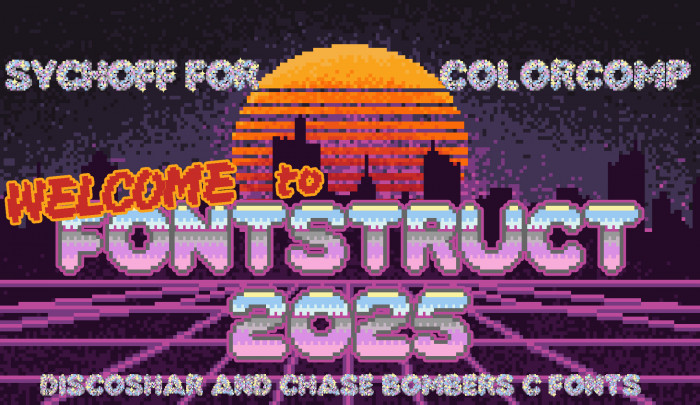
Discoshar means Discoball
Nice pixel-art font! The blurred letters makes me smile. Well done.
Btw, I think your coloured bricks are overlapped... this would produce a extrange mix using the final font in a design, melting ones by others because the colous must appear and be used transparent in colour fonts, IMHO. But the font is cool. Go on.
Nice shine :-)
@elmoyenique: As you can see from the picture, everything works well in Photoshop.
Great pixel font and sample.
The soft shapes at such a low resolution is impressive. Interesting colors too.
Very cool! Must've been a lot of work ;)